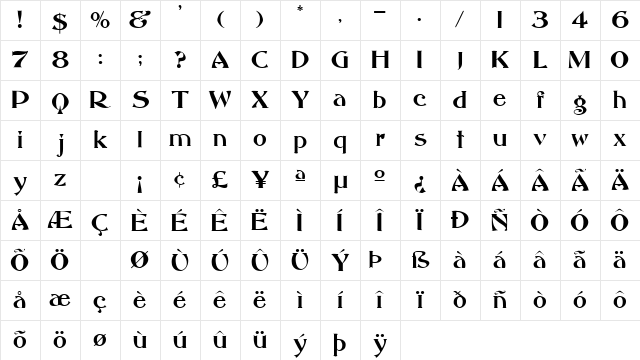
Abbess Regular
Abbess Family
Design Context for Abbess
Abbess is a composed and adaptable typeface that performs quietly and consistently across a wide range of design contexts.